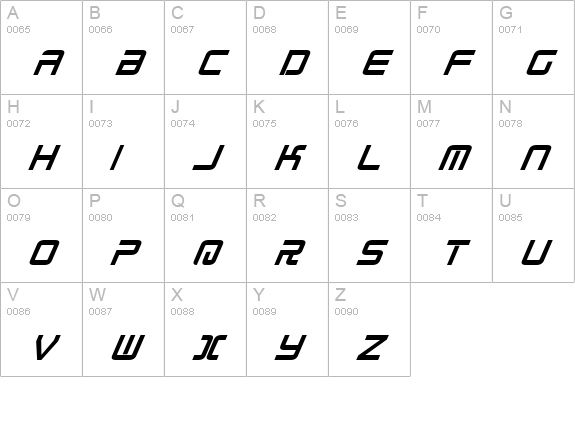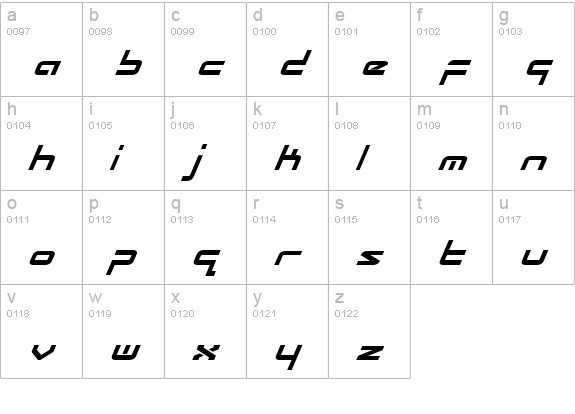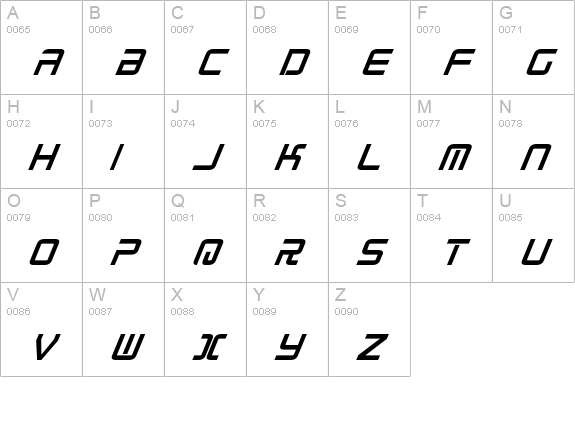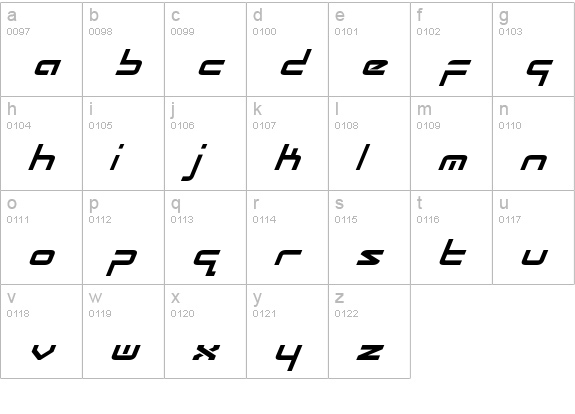
Radio Space Bold Italic is a strong, high-contrast, italic variant in the Radio typeface family \xE2\x80\x94 well suited to headlines, attention-grabbing titles, and strong calls-to-action.
Introducing Radio Space Bold Italic, a stunning and captivating font that is bound to elevate any design project to new heights. With its unique combination of boldness and italics, this font exudes a sense of energy and dynamism, making it perfect for eye-catching headlines, logos, and branding materials. Designed with meticulous attention to detail, Radio Space Bold Italic strikes the perfect balance between modernity and elegance. Its bold strokes and slanted angles create a sense of movement, drawing the viewer's attention and leaving a lasting impression. Whether used in print or digital mediums, this font never fails to make a statement. What sets Radio Space Bold Italic apart is not just its visual appeal but also its versatility. It effortlessly adapts to various design styles, from sleek and contemporary to vintage and retro. Its bold and italicized characters add a touch of drama and flair to any composition, making it a favorite among designers seeking to make a bold statement. And the best part? Radio Space Bold Italic is freely available to download at FontsMarket.com. Yes, you read that right – this incredible font can be yours without any cost. With just a few clicks, you can access this font and unlock its unlimited potential – making it an ideal choice for both personal and commercial projects. So why wait? Elevate your design game and make a lasting impression with Radio Space Bold Italic. Download it today at FontsMarket.com and let your creativity take flight.